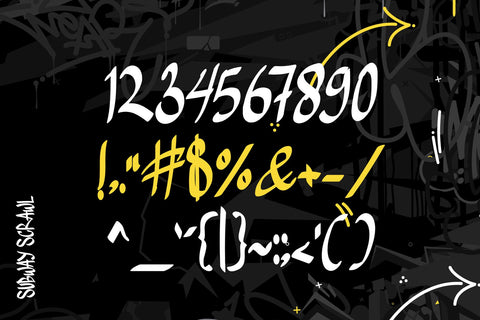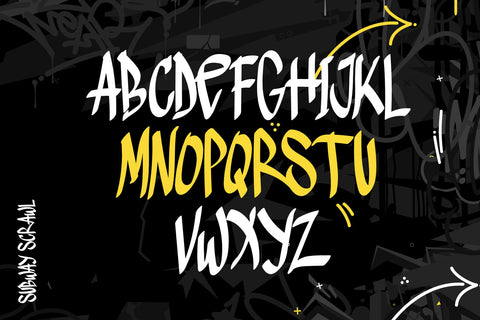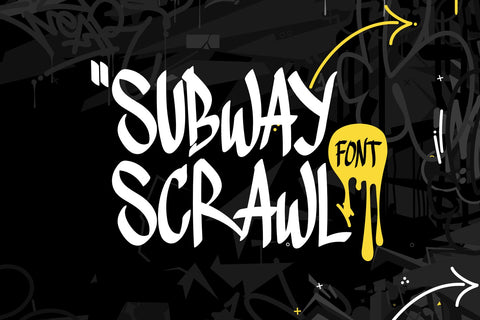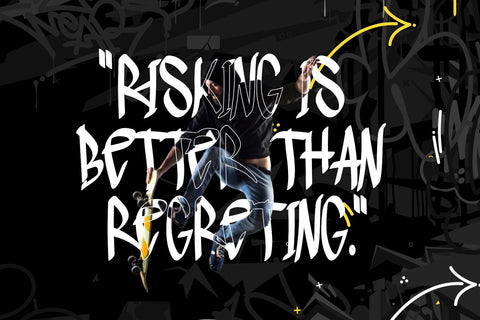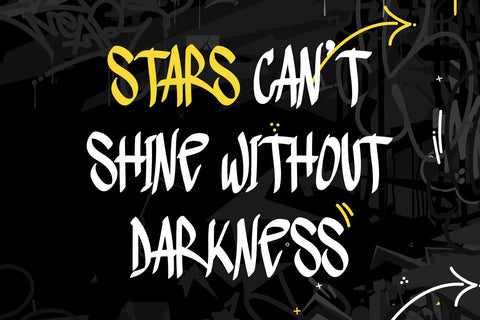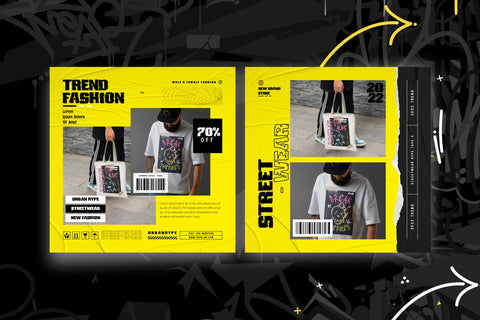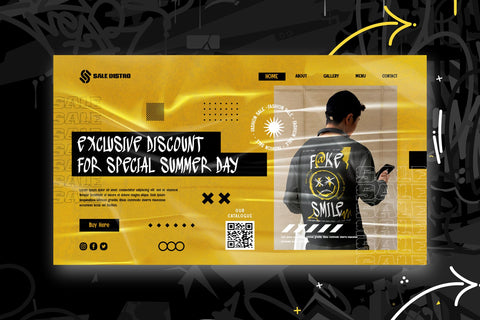
Subway Scrawl - Monoline Handwritten Graffiti Font
"Subway Scrawl" is a thin monoline graffiti font that combines sleek, continuous lines with a modern urban edge. Its minimalist design is perfect for adding a touch of sophistication and style to your projects while retaining an authentic graffiti vibe. Ideal for street art, posters, branding, and any creative work that calls for a clean yet edgy typographic element, "Subway Scrawl" provides a unique and contemporary look to make your designs stand out.